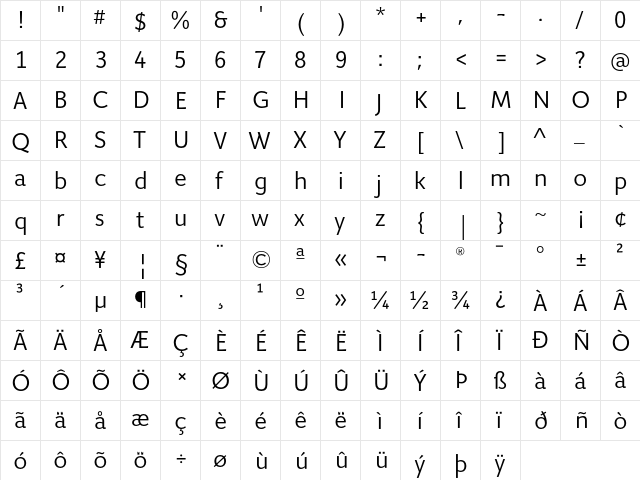
Giacomo Regular
| Designer | James Montalbano |
Design Context for Giacomo Typeface
Giacomo takes a measured approach to typography — its balanced proportions and neutral character make it a reliable workhorse for both digital and print work.